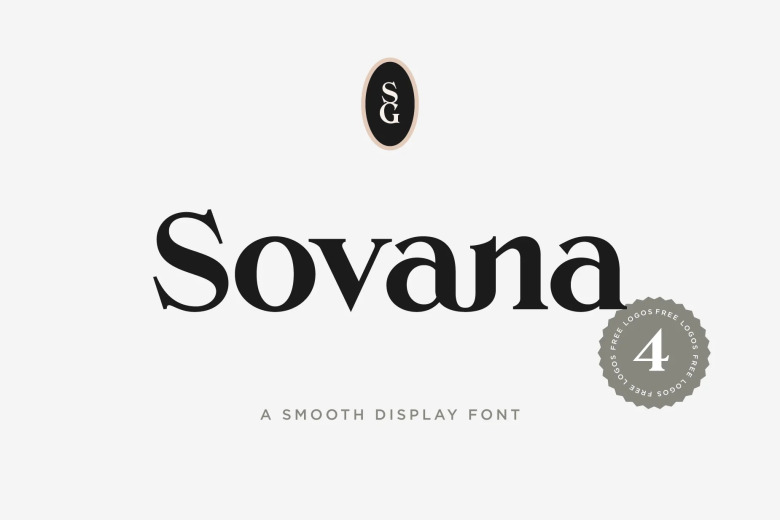
Sovana is a modern, friendly display font with sharply angled serifs. Like all of our fonts, it is fun, elegant, and contemporary. Sovana works great for headlines, logos, branding, posters, packaging, and much more. Furthermore, we included 4 free logo templates – fully customizable. Check out our preview images to see them in action.
Sovana Serif Font